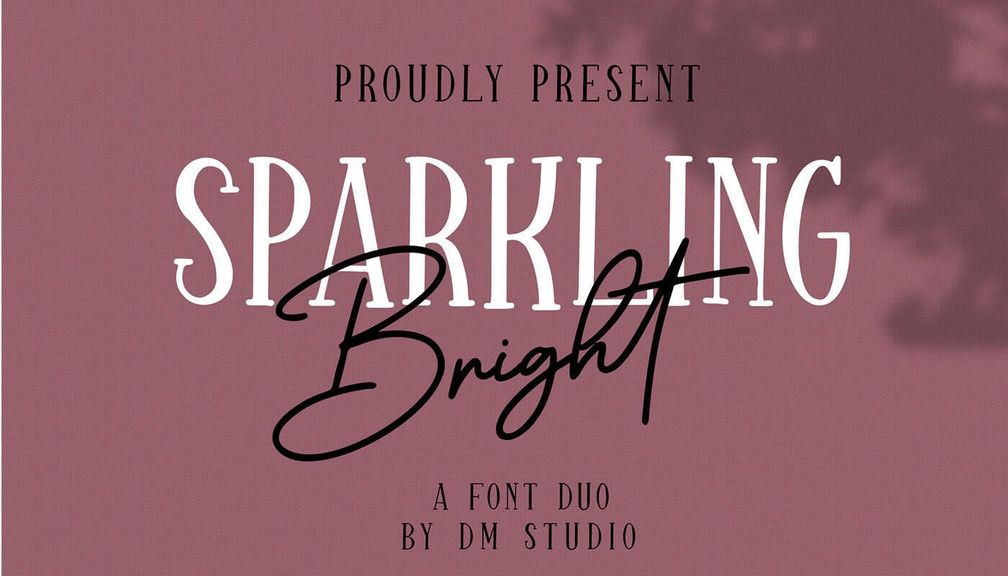
Sparkling Bright – Beauty Font Duo
The Sparkling Bright Beauty Font Duo is a harmonious pairing of two elegant typefaces that radiate sophistication and charm. With a combination of a delicate script and a refined serif font, this duo adds a touch of elegance and beauty to your designs. Perfect for luxury branding, wedding stationery, editorial layouts, and more.
1. Elegance in Duo: The Sparkling Bright Beauty Font Duo combines a delicate script font and a refined serif font, offering a balanced contrast that exudes elegance. The script font captures flowing curves, while the serif font adds a touch of classic refinement, providing versatility for various design contexts.
2. Elegant Script: The script font features delicate letterforms with graceful flourishes. Its smooth curves and stylish connections create a sense of luxury and charm, making it perfect for headings, logos, and other elements that require an upscale touch.
3. Refined Serif: The serif font of the duo boasts clean lines and sophisticated letterforms. Its timeless appeal adds a sense of tradition and professionalism to your typography, making it ideal for body text, editorial layouts, and branding collateral.
4. Versatile Application: This font duo is versatile and well-suited for various design projects that demand a combination of elegance and beauty. Use it in luxury branding, wedding invitations, fashion magazines, social media graphics, and more to add a touch of sophistication to your designs.
5. Seamless Pairing: The Sparkling Bright Font Duo is designed to complement each other seamlessly. The script and serif fonts are carefully crafted to work together harmoniously, allowing you to create cohesive and visually pleasing typography combinations.
6. Punctuation and Symbols: In addition to the alphabet, the font duo includes a comprehensive set of punctuation marks, numerals, and common symbols. This ensures consistency and ease of use when incorporating the fonts into your design projects.
Elevate your designs with the timeless elegance of the Sparkling Bright Beauty Font Duo. Let its delicate script and refined serif fonts bring a touch of sophistication and charm to your luxury branding, wedding stationery, and editorial layouts. Embrace the beauty of this duo and create designs that exude professionalism and grace.